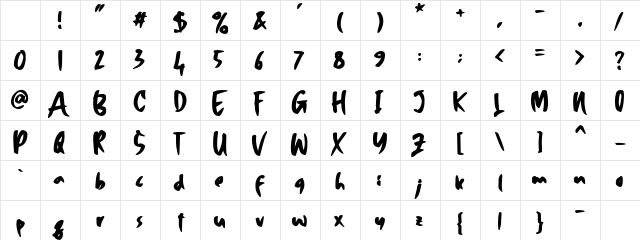
Complete Hiroshima Regular glyph index. Displaying only characters natively supported by Hiroshima Regular font.
Hiroshima is a composed and adaptable typeface that performs quietly and consistently across a wide range of design contexts.